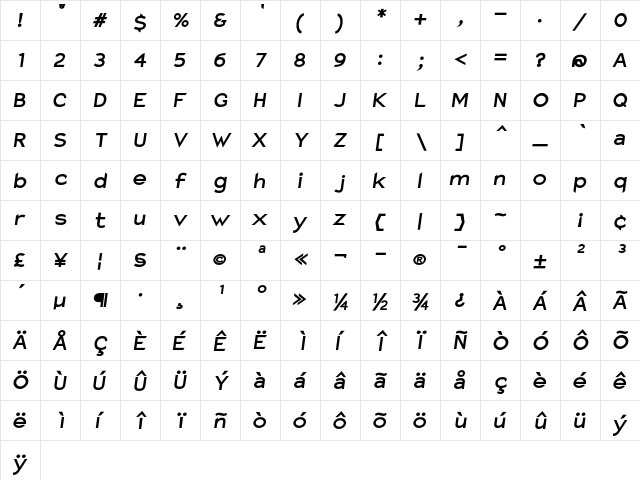
Charger ExBdIt
Design Context for Charger Typeface
Charger offers clean, dependable letterforms without strong stylistic allegiance, making it a practical choice for designers who need flexibility. The heavy weight commands attention and anchors typographic hierarchies.